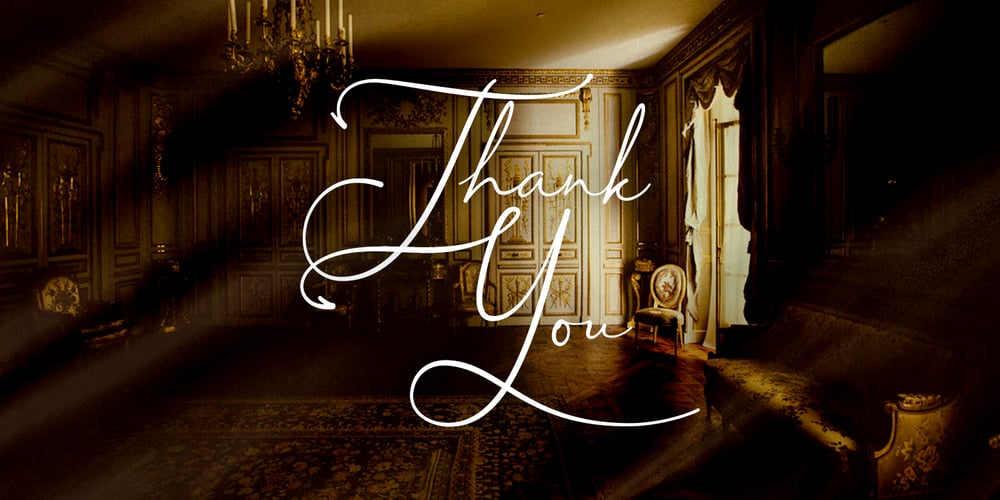
Asmelina Harley
Asmelina Harley font
Asmelina Harley Font Family was designed by Arif Dwi and published by Kotak Kuning Studio. Asmelina Harley contains 1 styles and family package options. Say hello to Asmelina Harley, an elegant calligraphy script font. Perfect for making elegant stylish statements – or adding a touch of class to your designs. This script has a multitude of natural looking ligatures in its OpenType features – making the font look as close to natural handwriting as possible. Asmelina Harley is perfect for many different project such as logos & branding, invitations, stationery, wedding designs, social media posts, advertisements, product packaging, product designs, label, photography, watermark, special events or anything. I highly recommend using a program that supports OpenType features and Glyphs panels such as Adobe Illustrator, Adobe Photoshop CC, Adobe InDesign, or CorelDraw, so you can see and access all Glyph variations. Asmelina Harley is encoded with Unicode PUA, which allows full access to all additional characters without having special design software. Mac users can use Font Book, and Windows users can use Character Map to view and copy one of the extra characters to paste into your favorite text editor/application. We hope you enjoy the font, please feel free to comment if you have any thoughts or feedback. Or simply send me a PM or email me at kotakkuningstudio@gmail.com. Thanks for purchasing and have fun!